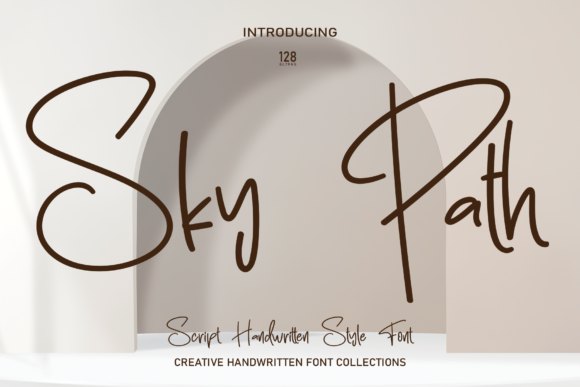
About Sky Path Font
The letters of this font have been meticulously crafted to cater to a wide spectrum of creative applications, making it an ideal choice for a diverse range of design projects. Whether you’re working on captivating wall displays, crafting elegant wedding invitations, designing eye-catching social media post logos, creating compelling advertisements, conceptualizing striking product packaging and designs, developing distinctive labels, adding a personal touch to photography watermarks, or producing charming invitations and stationery, this font is purposefully designed to fulfill the requirements of any project that craves a handwritten aesthetic.
Imagine the font’s distinctive letters breathing life into wall displays, infusing them with a personalized and artisanal touch that captivates viewers. Picture it gracing wedding invitations, contributing to an atmosphere of elegance and individuality. Envision the font seamlessly blending into social media post logos, establishing a recognizable and unique brand identity.
See it enhancing the visual impact of advertisements, product packaging, and product designs, creating a brand image that stands out. Visualize the font delicately placed on labels, adding a handwritten charm to various products. Envision it leaving a lasting impression as a watermark on photographs, ensuring they bear the signature of an artistic touch. Picture the font setting the tone for invitations and stationery, offering a warm and personal connection for the recipients.
In essence, this font is a versatile and indispensable tool for projects requiring a handwritten taste. Its adaptability ensures a seamless integration into diverse design contexts, enriching the overall aesthetic and imparting an authentic feel. Choose this font to bring a handwritten charm to your creative endeavors across a spectrum of projects.